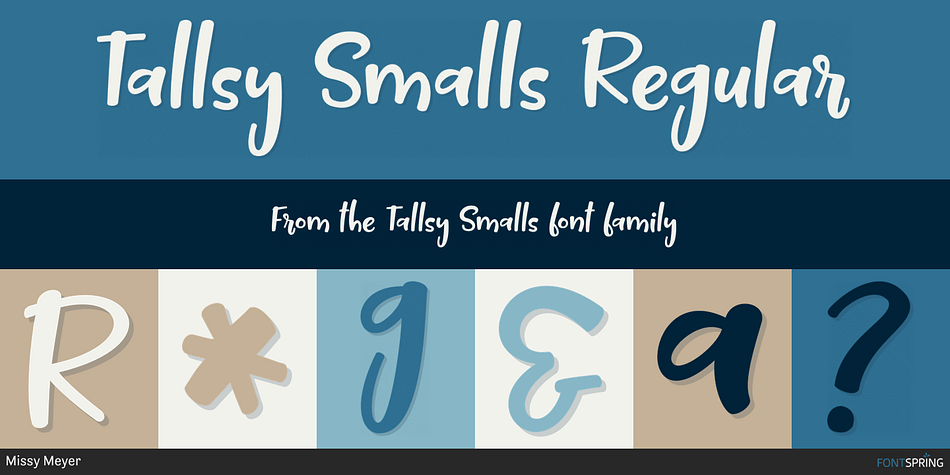
Tallsy Smalls Regular
Designed by Missy Meyer, Tallsy Smalls is a hand drawn font published by Missy Meyer.
Tallsy Smalls: a name inspired by a little cat who was able to get to the top of a very high bookcase. (Come on, cat people—we all have 1,001 nicknames for our cats.)
This is a fun little font, cleaned up to the extreme so that every letter has smooth curves and sleek lines—perfect for crafters! I liked the letters so much I made an additional set of them with tails, so there’s a stylistic alternate set of script-style connectors; you can either use those entirely, or mix and match with the standard lowercase letters!
This font includes over 200 extended Latin characters for language support, plus additional “extra tall” versions of lowercase b, d, f, g, h, j, k, l, p, q, t, and y. And everything is fully PUA-encoded for easy access in all programs!